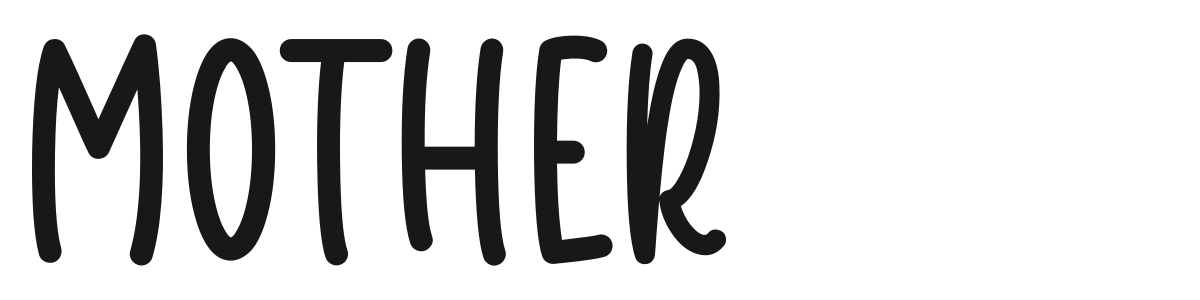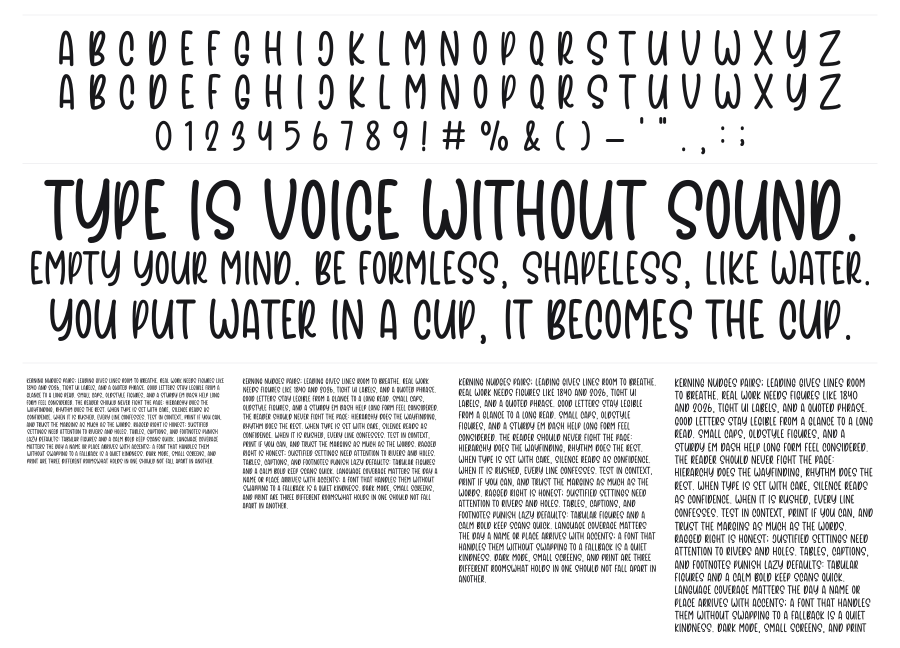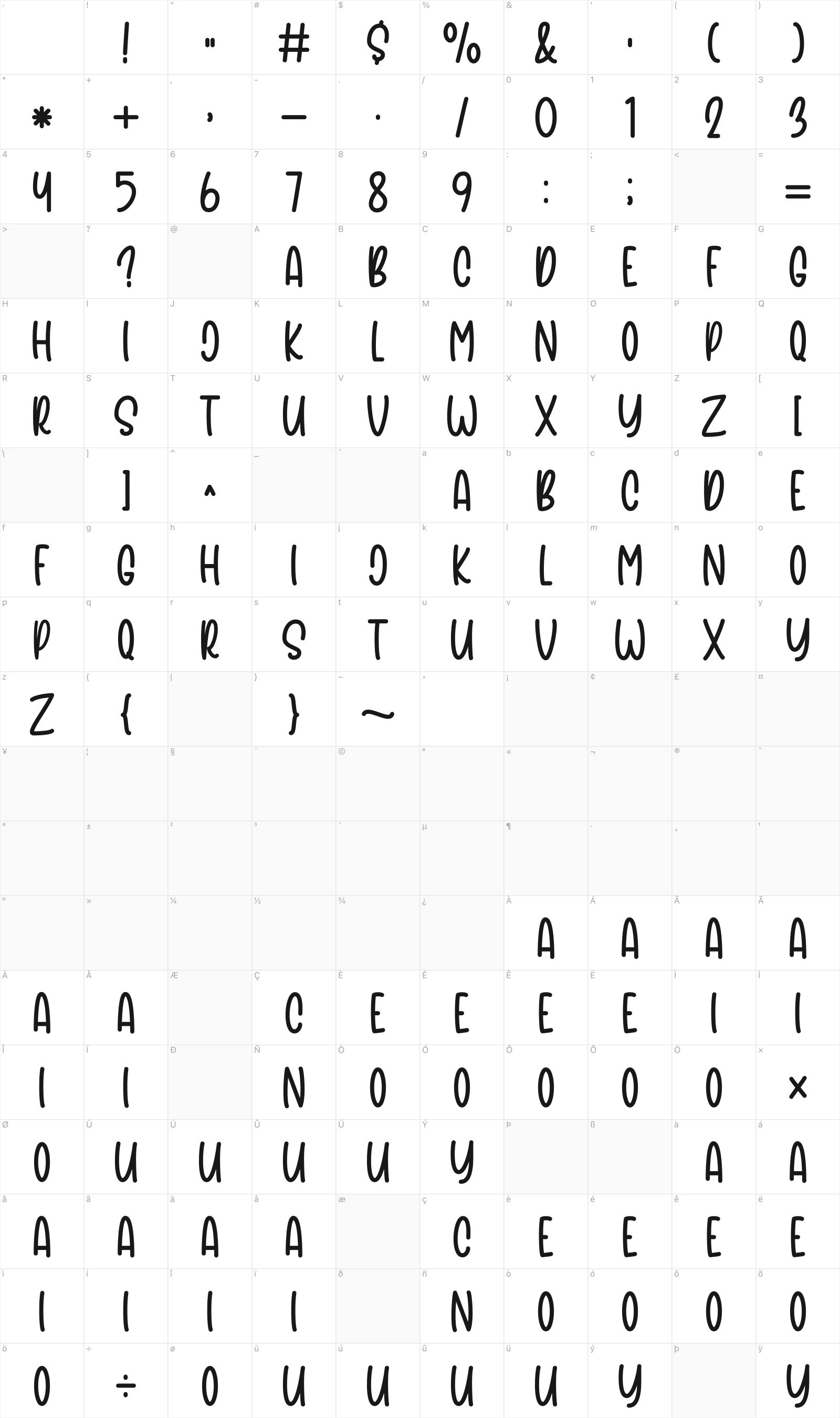
Mother
Mother is a bold, rounded casual font with the warmth of hand lettering and just enough irregularity to feel human. Stroke weight stays consistent while subtle variations in letter height and terminal rounding keep things from feeling mechanical. It brings an easygoing, friendly energy to logos, packaging, and short-form headlines.